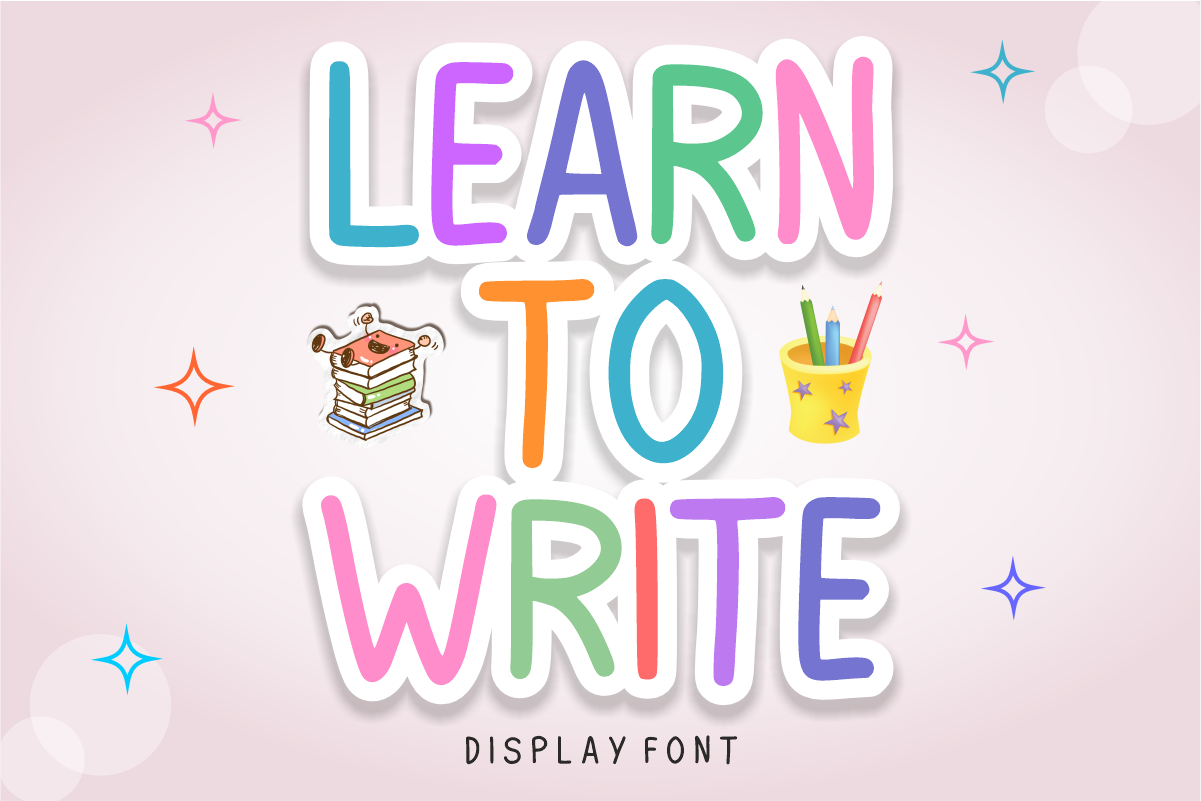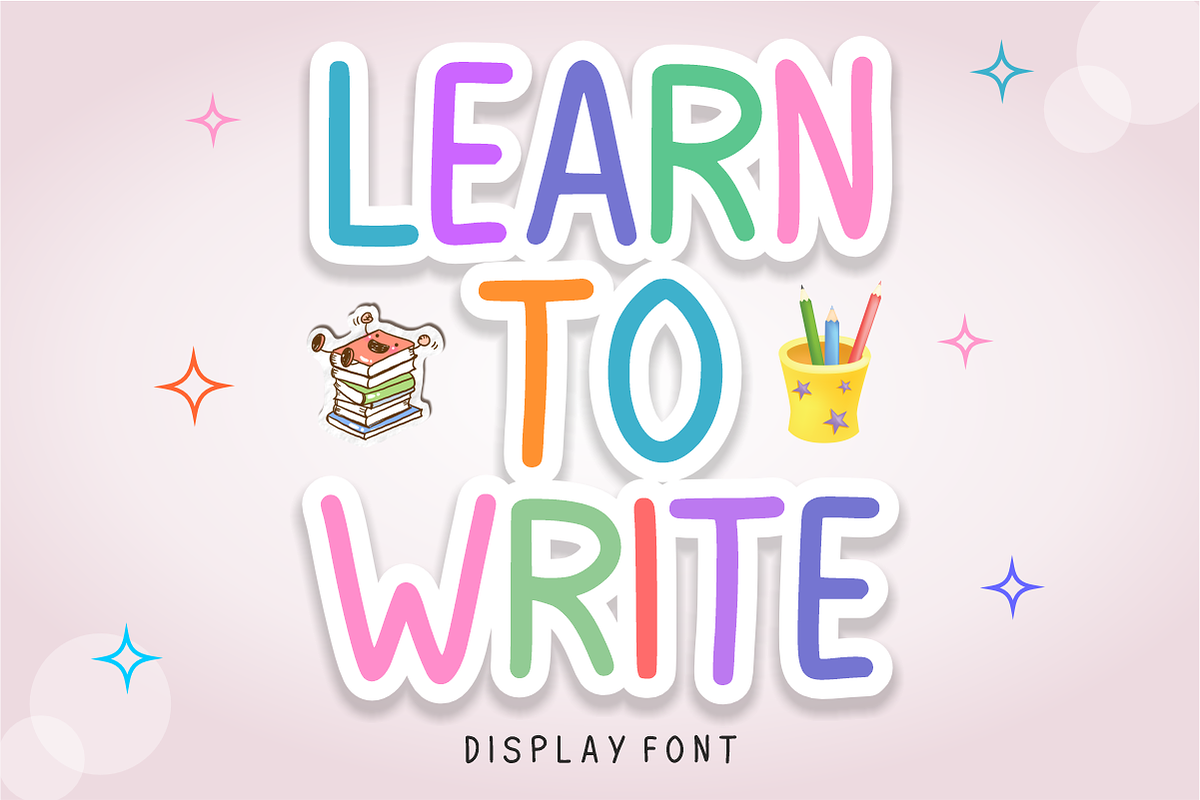
Learn To Write - Handwritten Font
Learn To Write - Playful Handwritten Display Font
Make learning fun and design beautiful with Learn To Write! This delightful, hand-drawn display font features a neat, friendly, and approachable structure that is absolutely perfect for educational resources, classroom materials, and juvenile designs.
Engineered with exceptional legibility and a clean, whimsical rhythm, Learn To Write effortlessly balances a casual, hand-crafted look with sharp vector precision. It is the ultimate asset for teachers, crafters, and digital creators looking to build bright, engaging, and highly professional kids' content across print and digital media.
All-Caps Character Set (Neat, playful uppercase letters with a charming hand-drawn feel)
Numbers & Basic Punctuation (Essential, simple symbols included)
Educational Materials, Flashcards, & Teacher Resources 🎒
Children’s Book Covers, Worksheets, & School Layouts 📚
Playful Brand Identities & Creative Kids' Logos 🎨
Social Media Graphics & Cute Classroom Decor 📱
Cricut, Silhouette, & DIY Craft Sublimation Projects ✂️